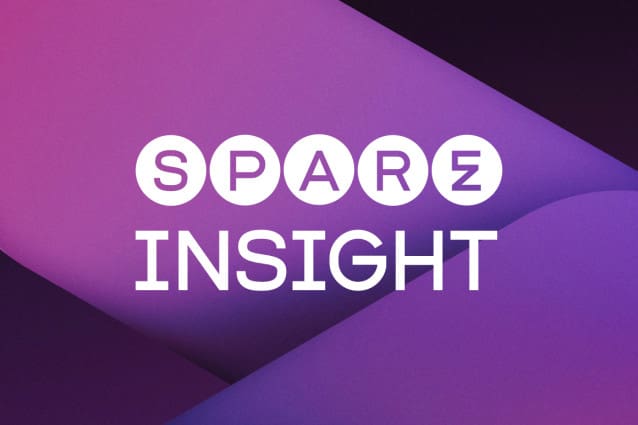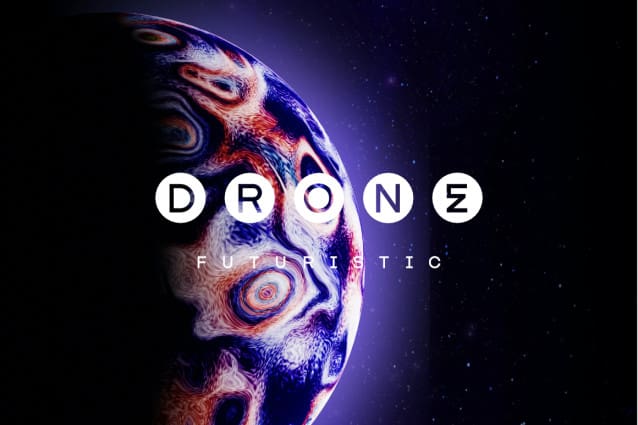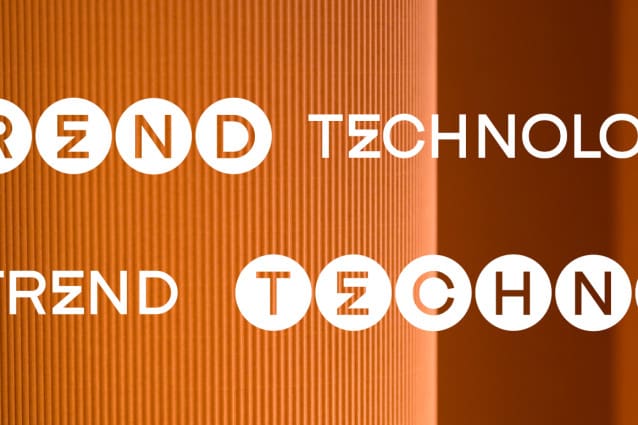
GETBOREG SPARE Font
GETBOREG SPARE Font, It’s more than just a font, it’s a visual symphony that resonates with the pulse of modernity. ensuring your message resonates with the dynamic energy of the digital age. Make a bold statement that captivates your audience and leaves a lasting impression.